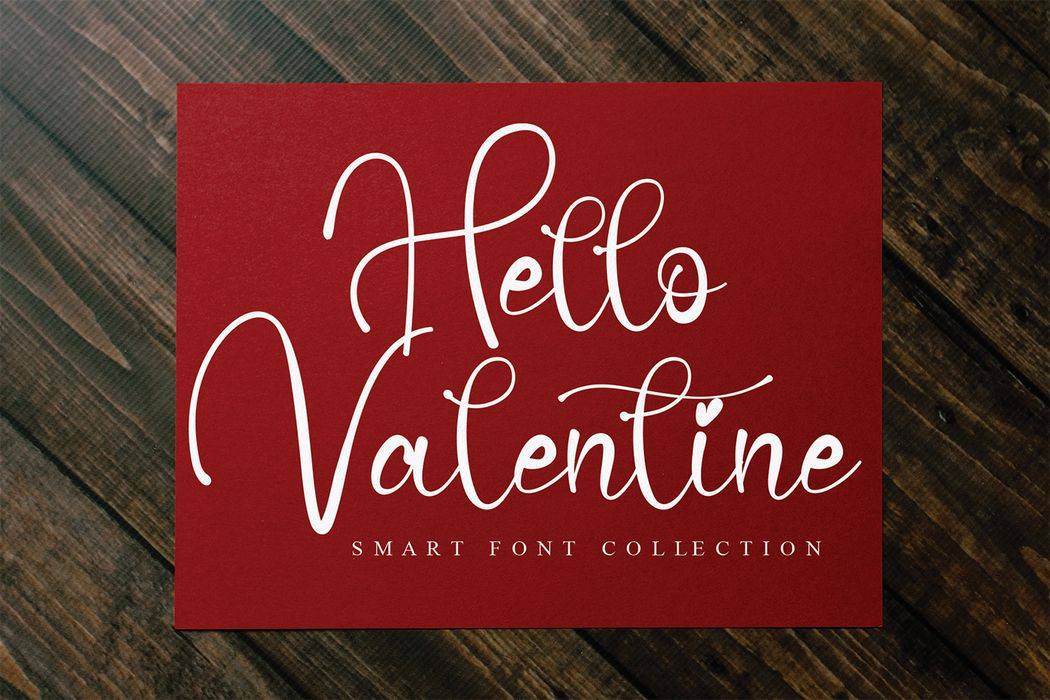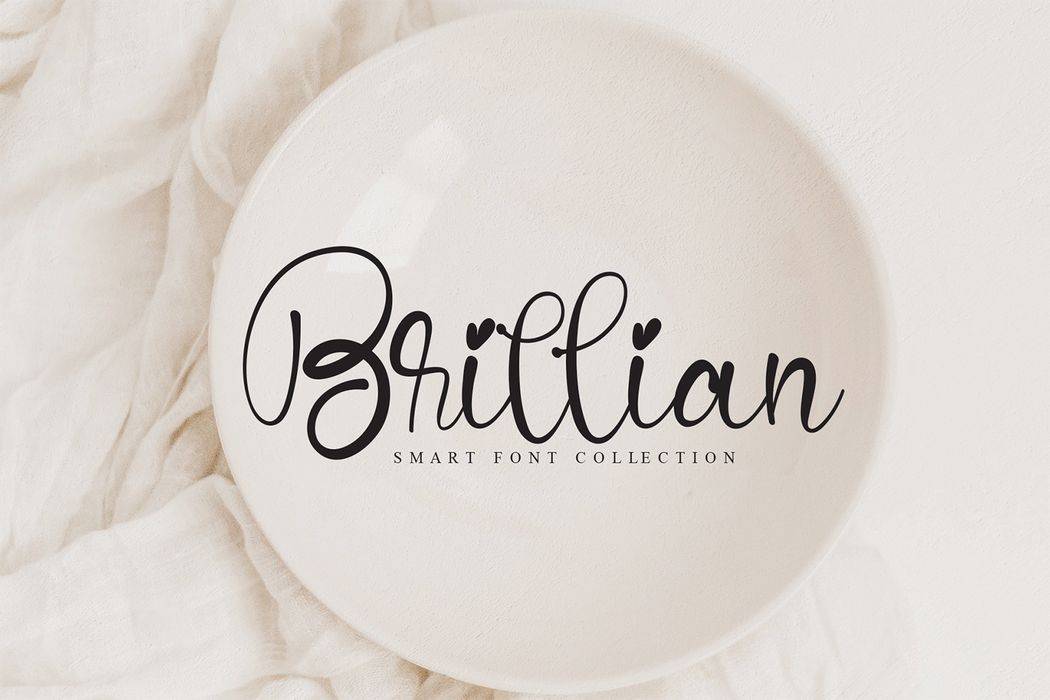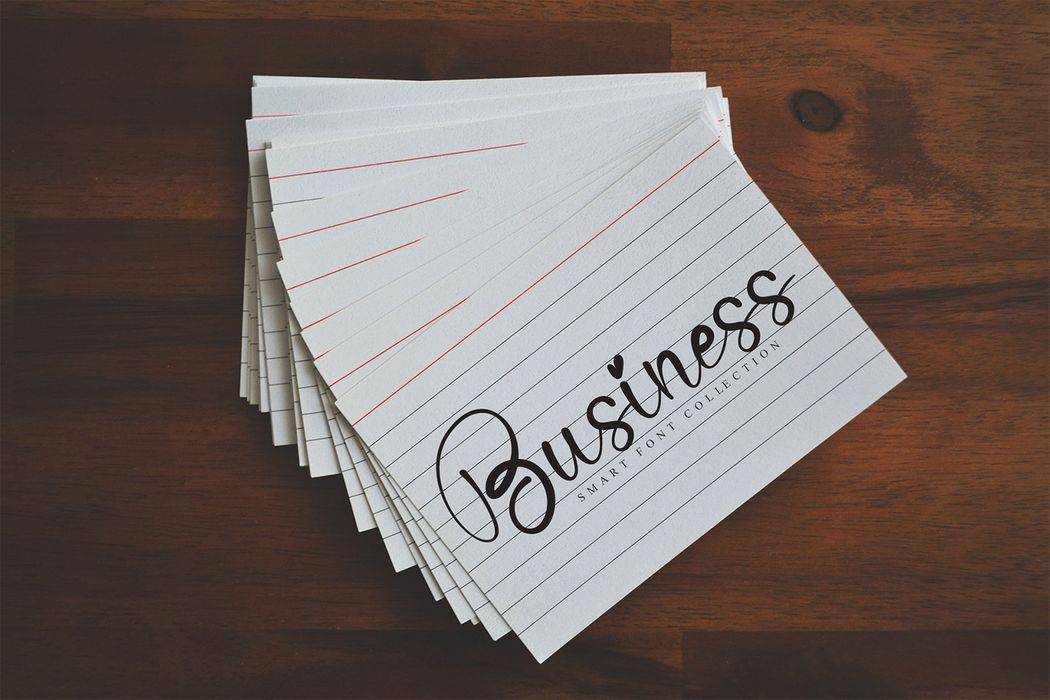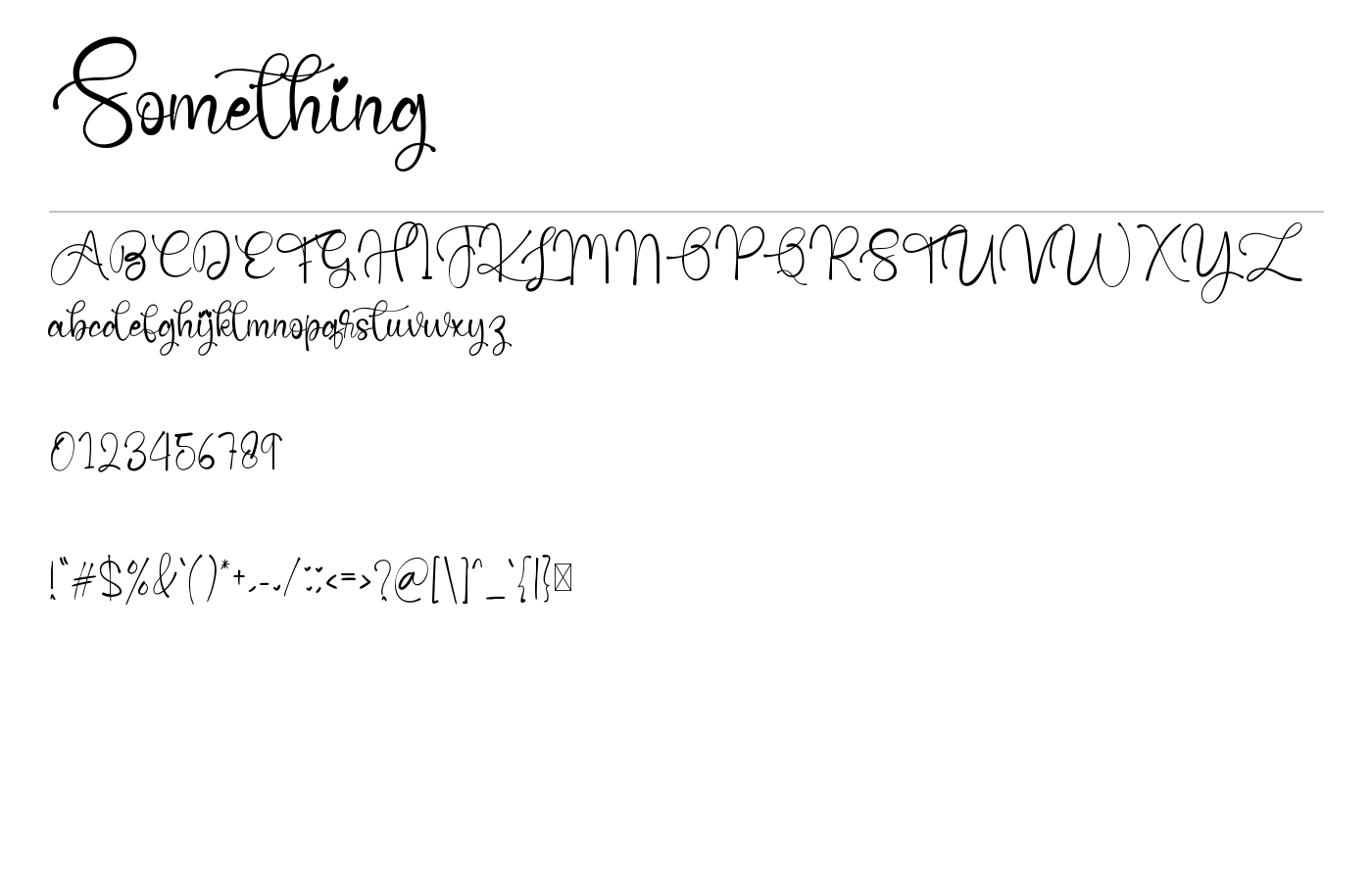
Something Font is a delicate, playful script typeface with elegant, flowing strokes and a handwritten feel. Its slender lines and whimsical loops make it perfect for creative, feminine branding, invitations, and lighthearted designs seeking a personal touch. This font shines in display uses such as logos and headlines where a graceful, charming style is desired.
Something Font
About Something Font